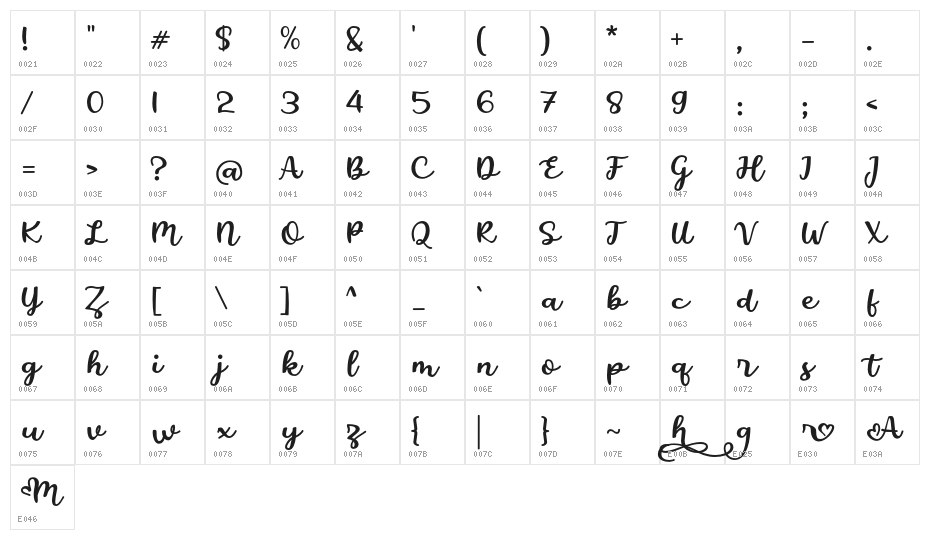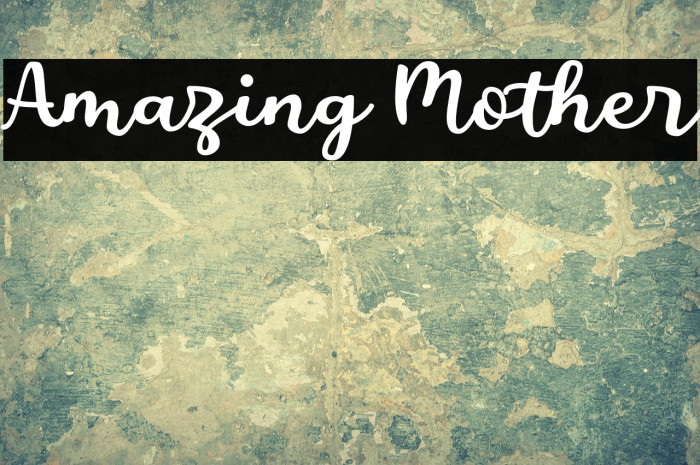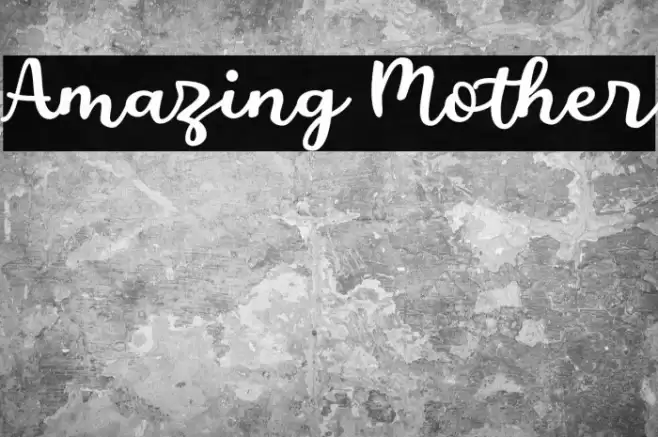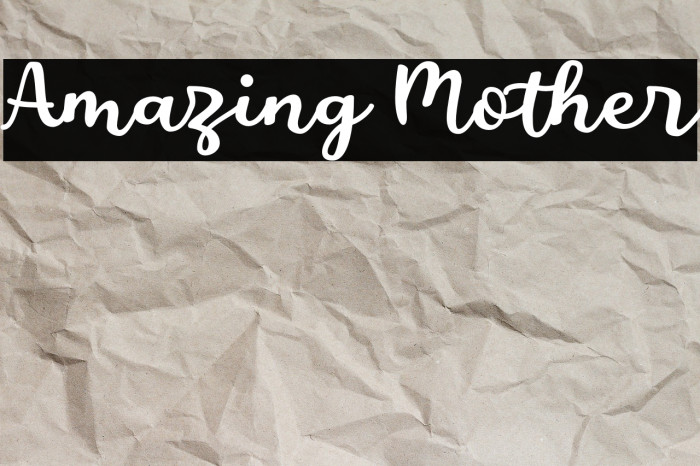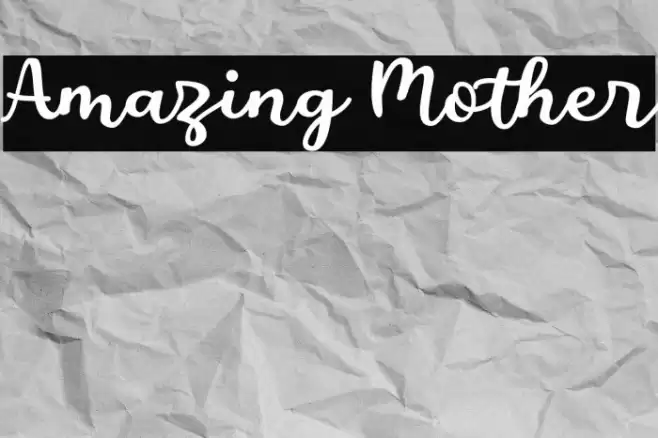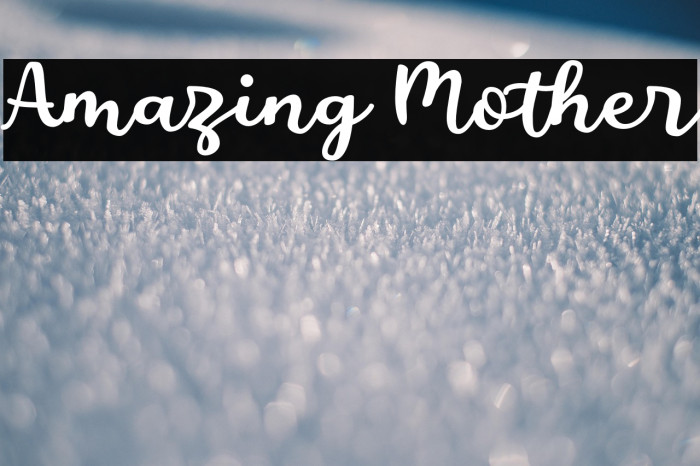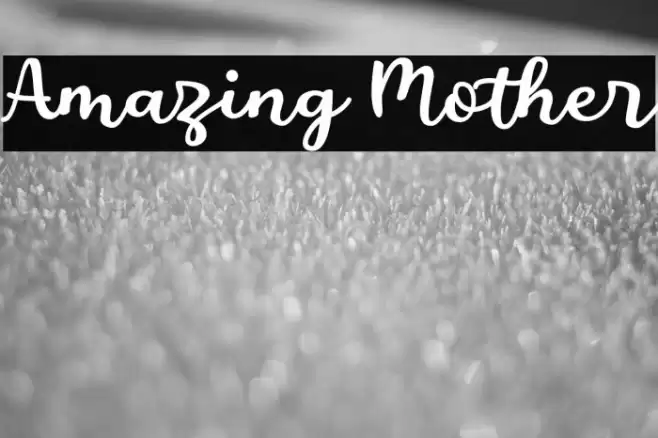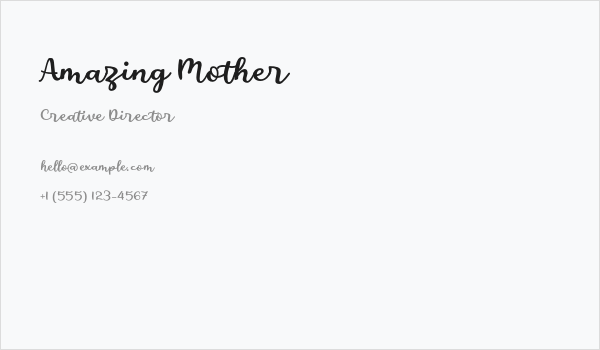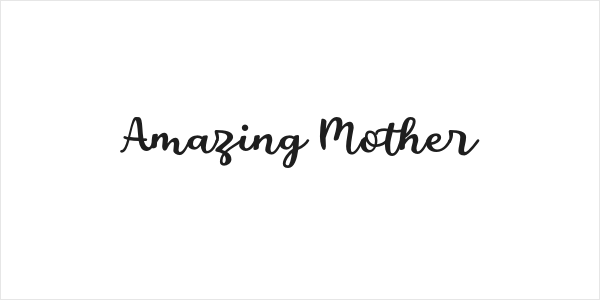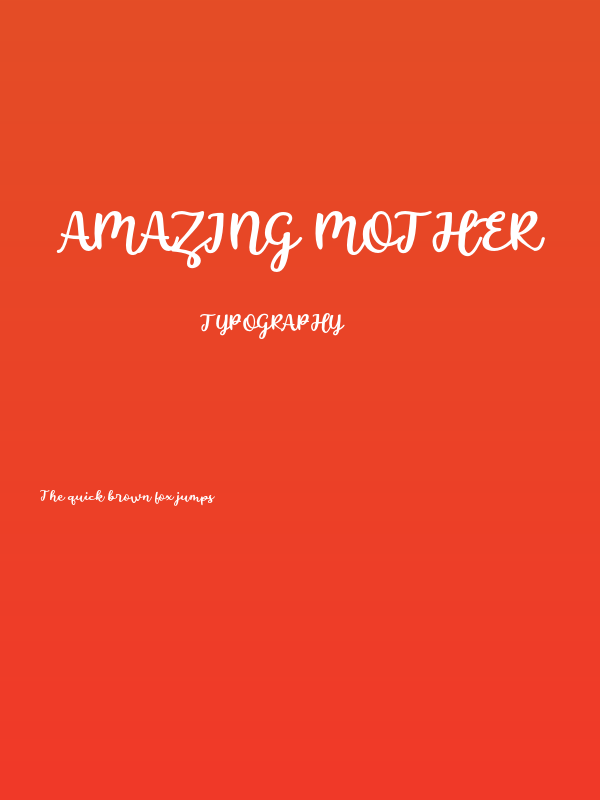
Amazing Mother Font
Amazing Mother Description
This font features a playful and fluid script style, characterized by its smooth, flowing curves and connected letters. The uppercase letters are bold and expressive, while the lowercase letters maintain a consistent rhythm and balance. The numbers are rounded and maintain the same playful aesthetic, making them easy to read. Special characters are creatively integrated, adding to the font's overall charm. The strokes are consistent in weight, offering a harmonious appearance that is both elegant and approachable.
| Proposed Projects | Ideal for greeting cards, invitations, branding, and social media graphics. |